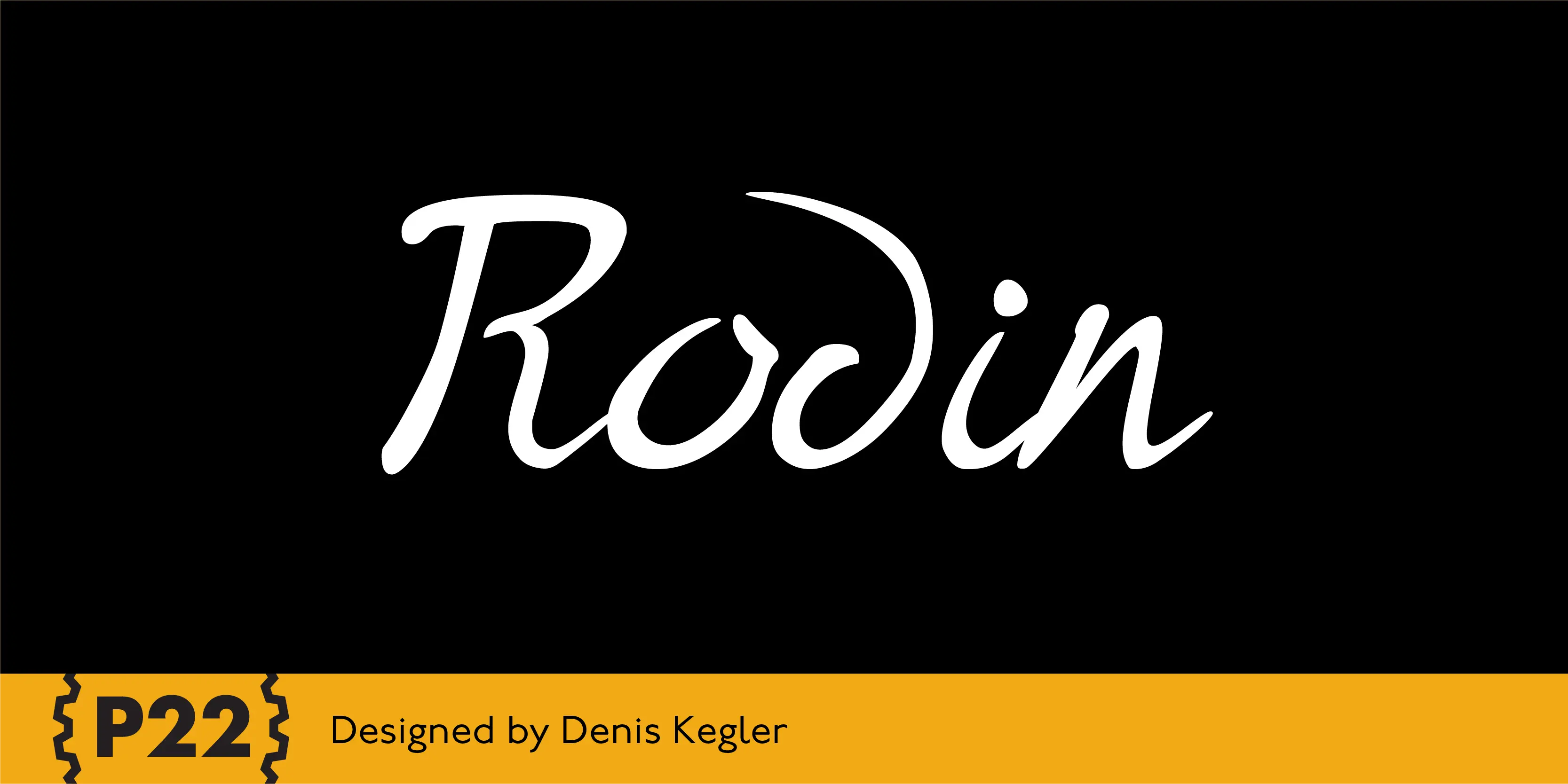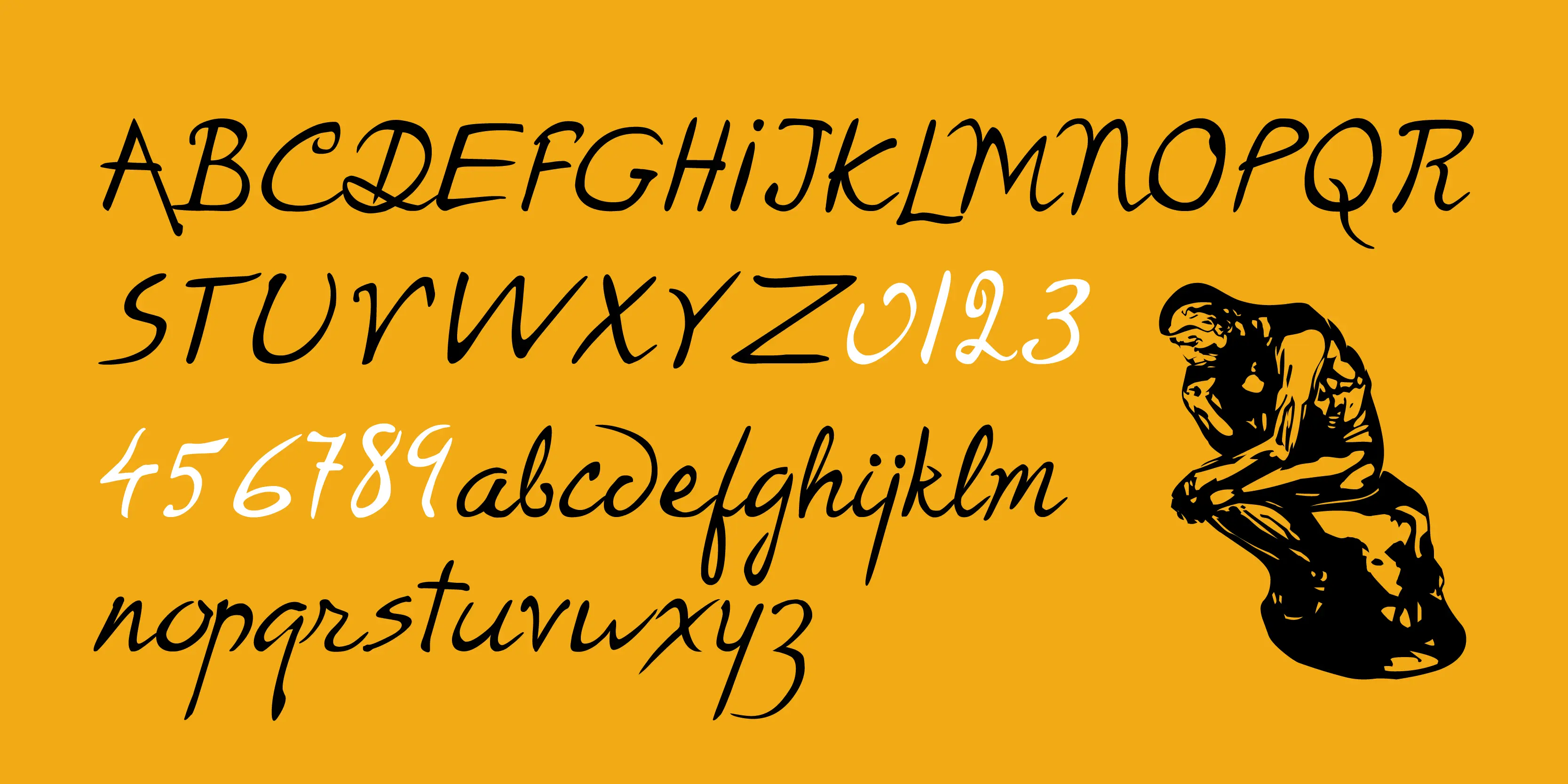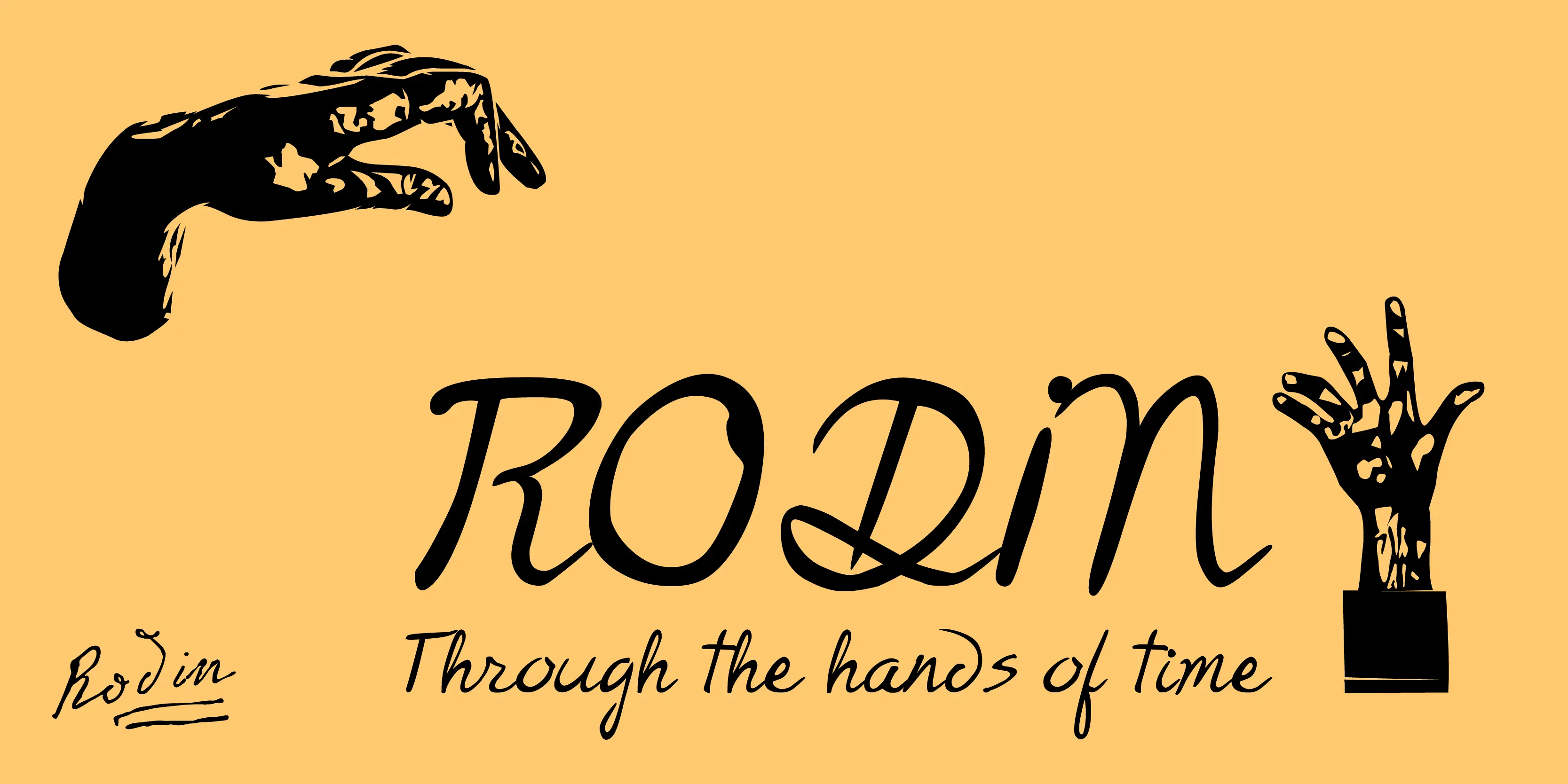
Rodin Font Family
Rodin
The great French sculptor August Rodin was strongly inspired by the Italian sculptor, painter and poet Michelangelo. Created in association with the Philadelphia Museum of Art, this font set is a tribute to the achievements of this extraordinary artist.